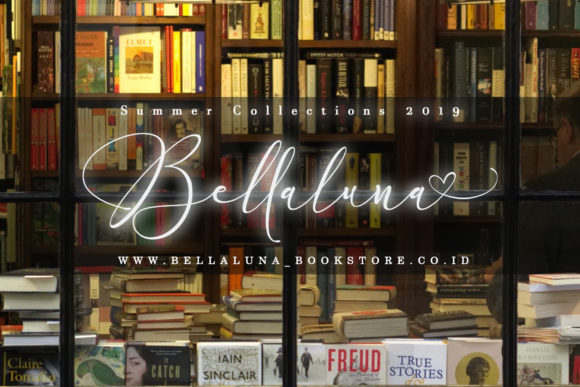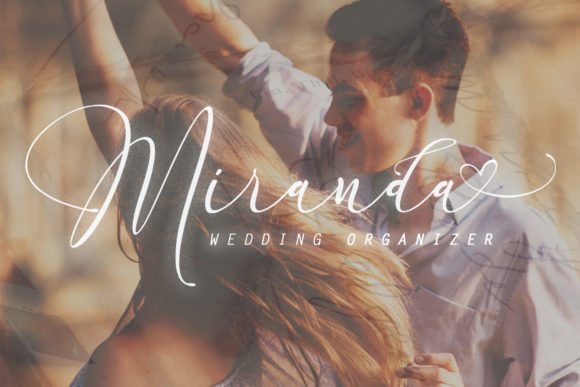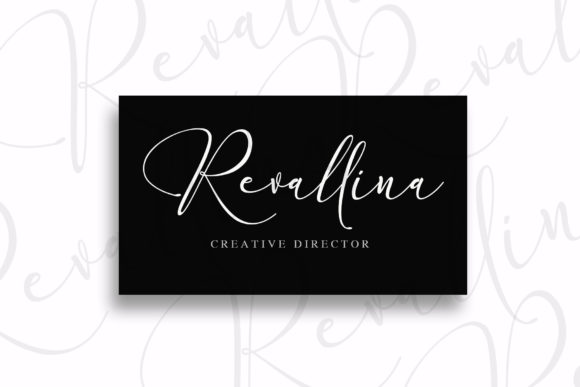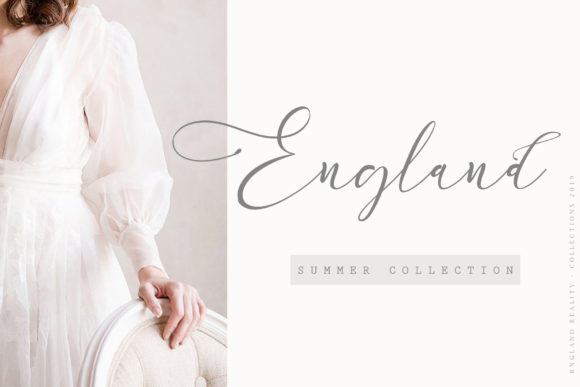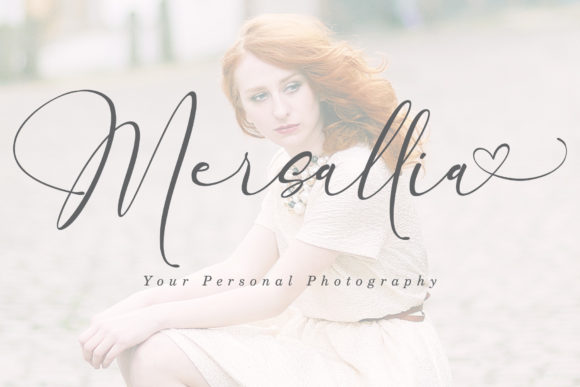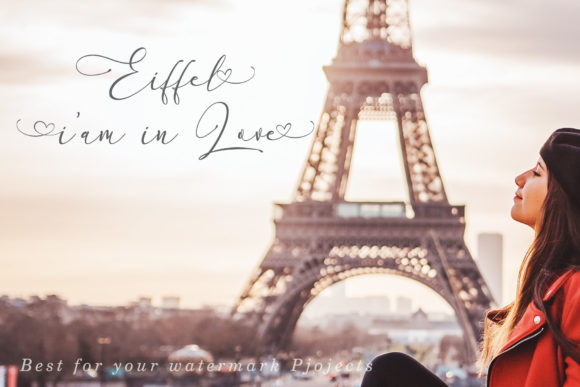
Discover the Elegance of England Reality Font: A Stylish Calligraphy Script
Are you a designer or crafter looking for a font that exudes elegance and sophistication? Look no further than the England Reality Font, a stunning calligraphy script that is sure to elevate your creative projects. This beautiful font features a varying baseline and smooth lines, giving it a unique and stylish flair that is perfect for a wide range of applications.
The Characteristics of England Reality Font
The England Reality Font is a stylish calligraphy font that boasts a number of distinctive characteristics. Its varying baseline gives it a sense of movement and fluidity, while its smooth lines create a sense of continuity and flow. This font is perfect for creating elegant and sophisticated text, whether you’re designing a logo, creating a poster, or crafting a beautiful piece of art.
One of the standout features of the England Reality Font is its versatility. This font can be used for a wide range of projects, from formal and professional applications to more creative and artistic endeavors. Whether you’re looking to create a sense of luxury and sophistication or simply want to add a touch of elegance to your design, the England Reality Font is the perfect choice.
The Benefits of Using England Reality Font
There are many benefits to using the England Reality Font in your creative projects. Here are just a few:
- Elegance and sophistication: The England Reality Font is the perfect choice for designers and crafters who want to create elegant and sophisticated text. Its unique and stylish flair is sure to impress.
- Versatility: This font can be used for a wide range of projects, from formal and professional applications to more creative and artistic endeavors.
- Easy to read: Despite its elegant and cursive nature, the England Reality Font is easy to read and understand, making it perfect for use in body text or headings.
- Unique and distinctive: The England Reality Font has a unique and distinctive style that is sure to set your design apart from the crowd.
How to Use England Reality Font in Your Designs
Using the England Reality Font in your designs is easy. Here are a few tips to get you started:
- Pair it with a simple background: The England Reality Font is a bold and elegant font, so it’s best to pair it with a simple background that won’t compete with the text.
- Use it for headings and titles: The England Reality Font is perfect for use in headings and titles, where its elegance and sophistication can really shine.
- Experiment with different colors: The England Reality Font looks great in a wide range of colors, so don’t be afraid to experiment and find the perfect shade for your design.
The England Reality Font is a stunning calligraphy script that is sure to elevate your creative projects. Its unique and stylish flair, combined with its versatility and ease of use, make it the perfect choice for designers and crafters who want to create elegant and sophisticated text. Whether you’re designing a logo, creating a poster, or crafting a beautiful piece of art, the England Reality Font is the perfect choice.